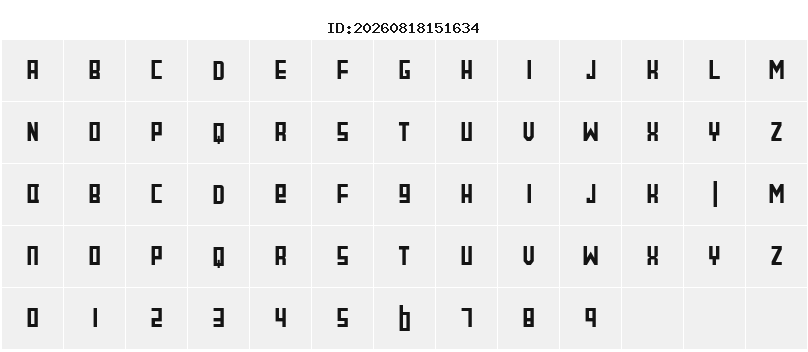
• Font Name: Slimline
• Full Font Name: Slimline
About Slimline.ttf
Slimline.ttf is a modern, elegant sans-serif font designed for ultimate readability and visual harmony. Perfect for branding, headlines, web design, and print materials.